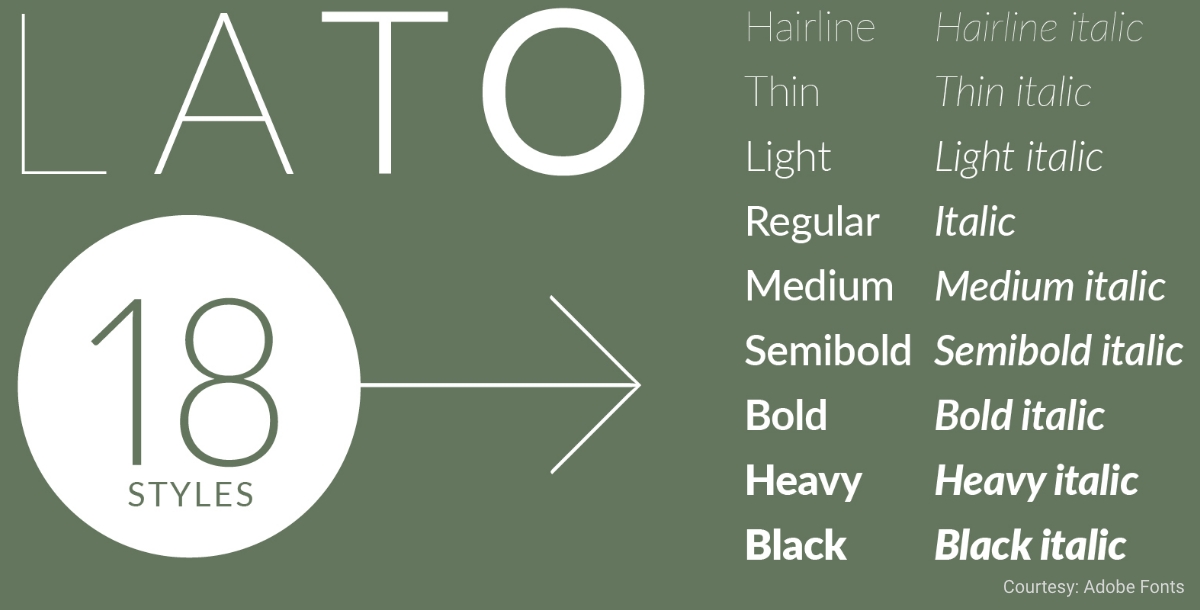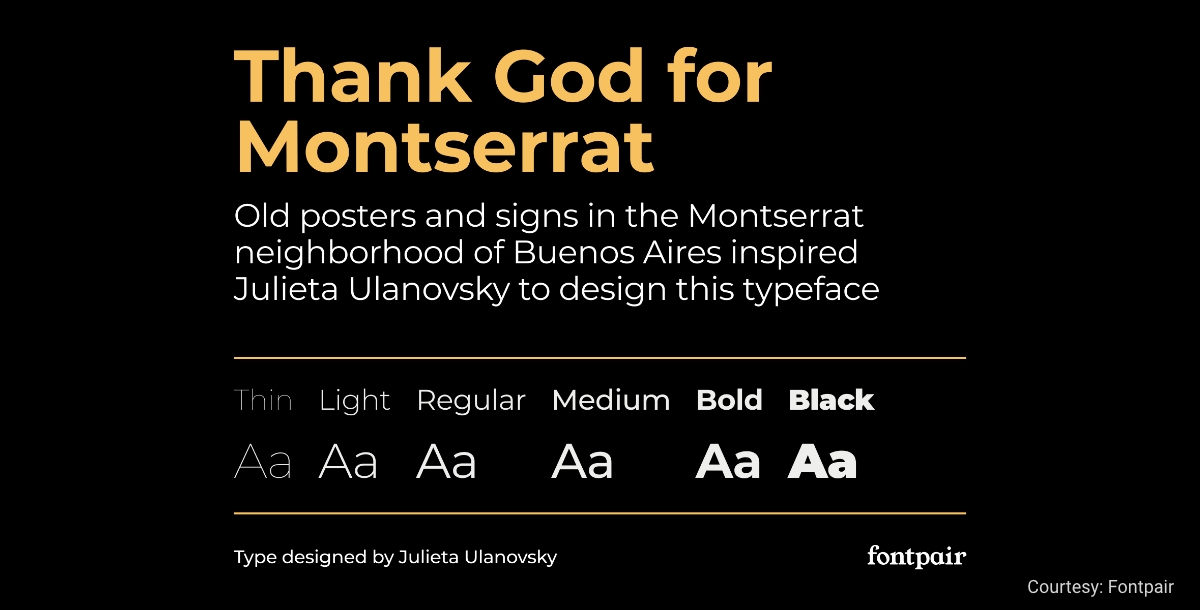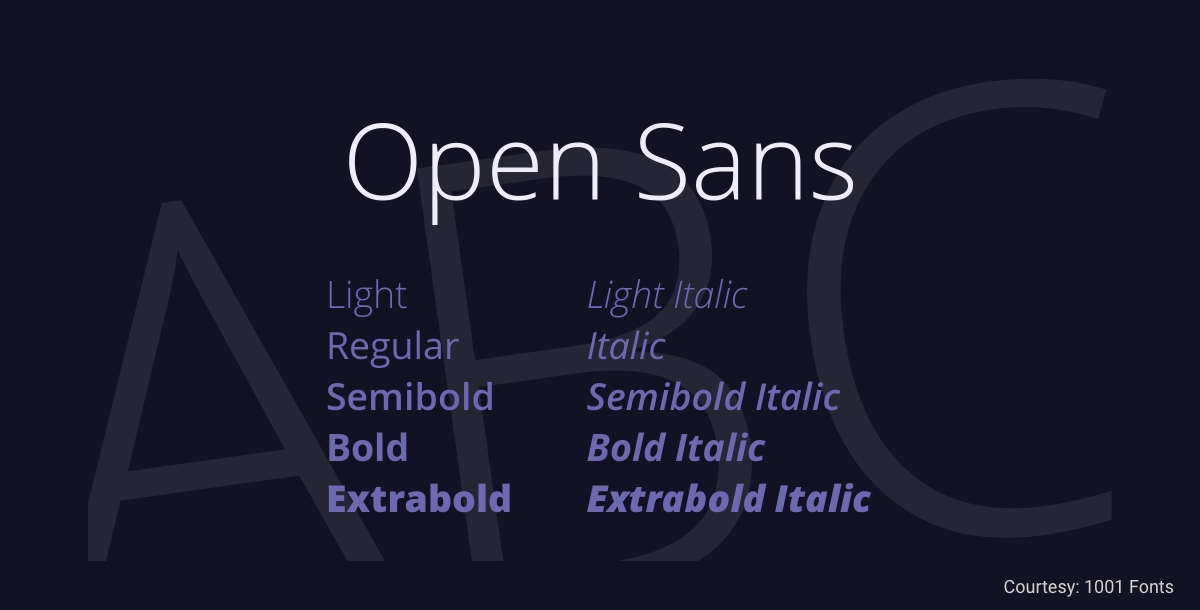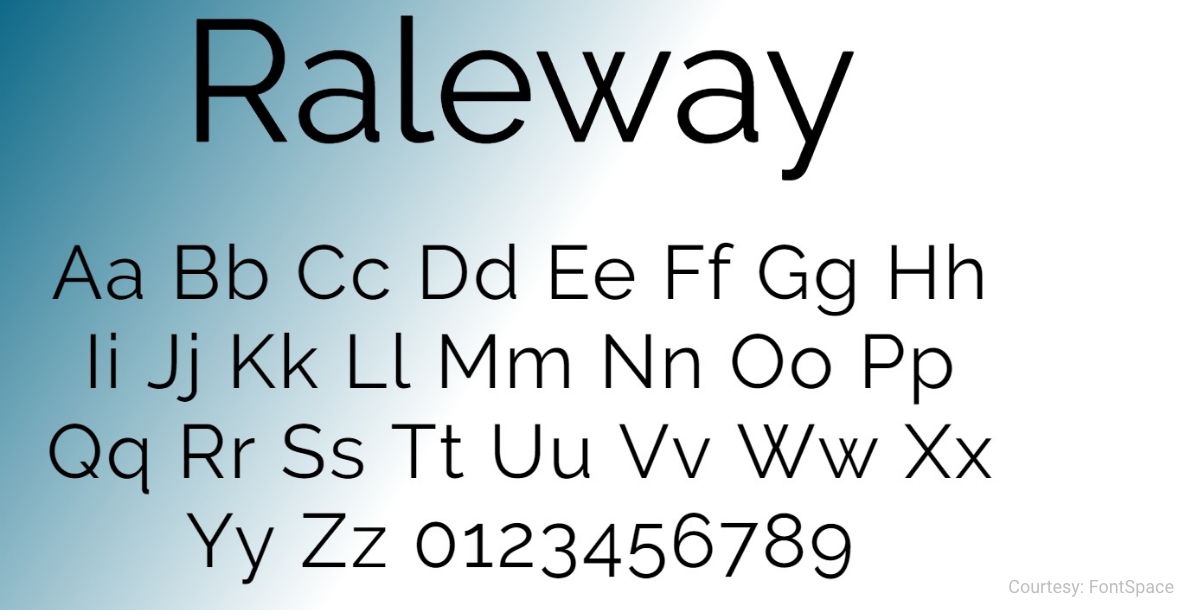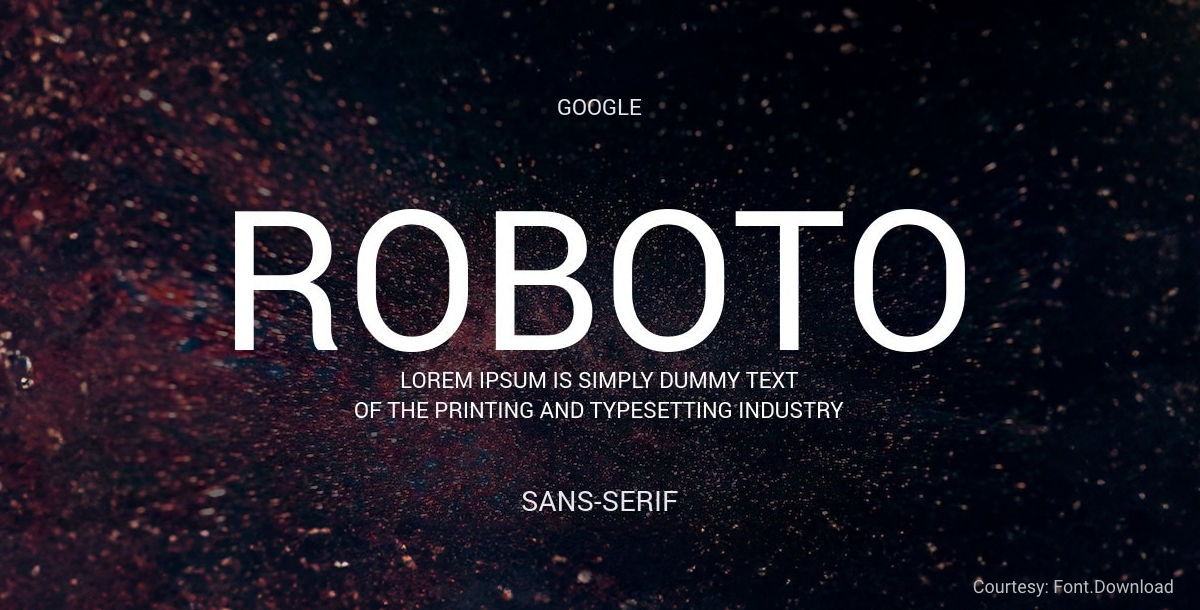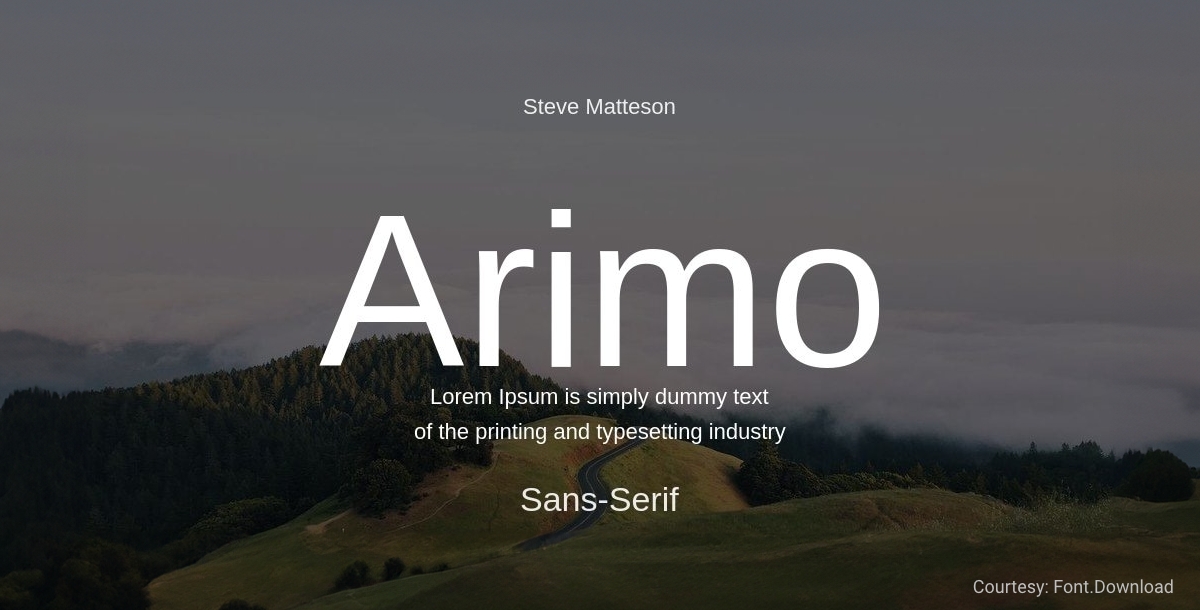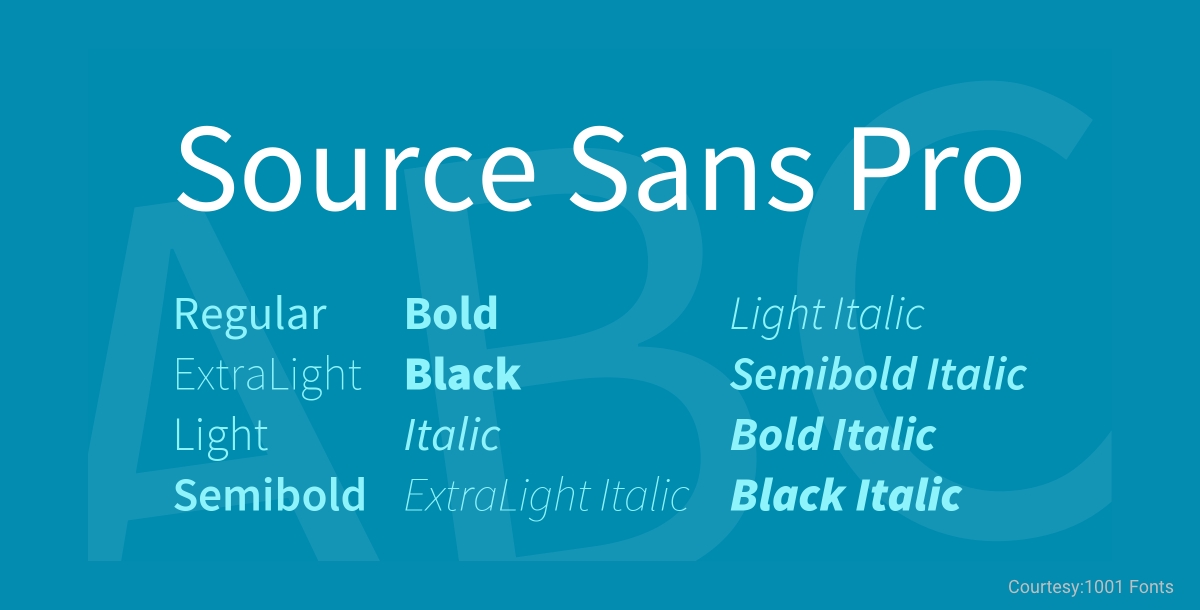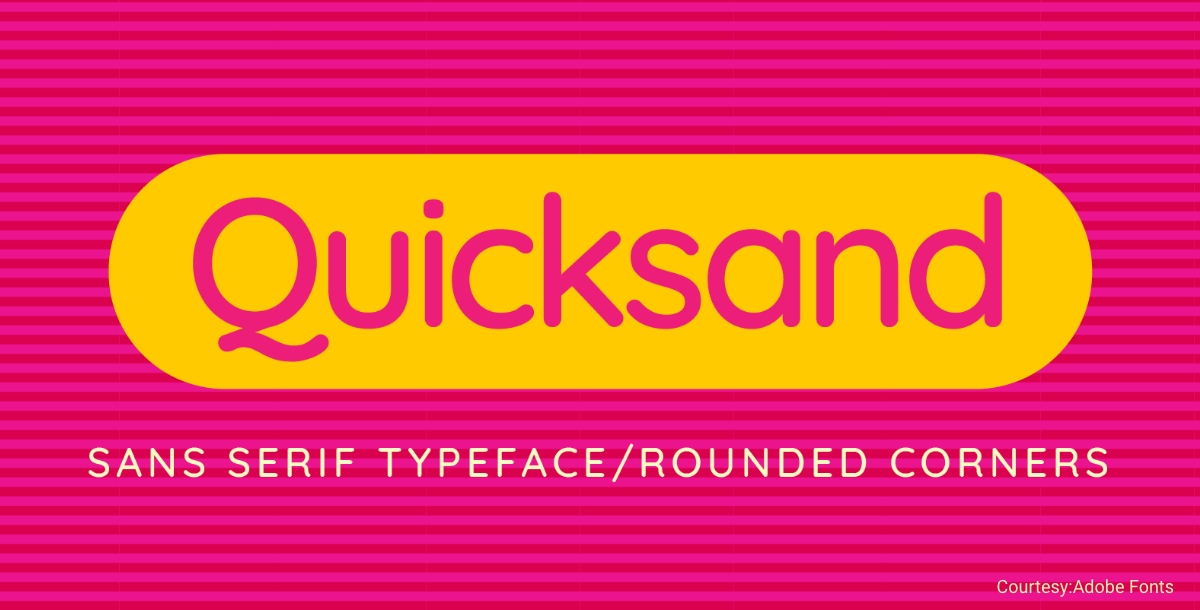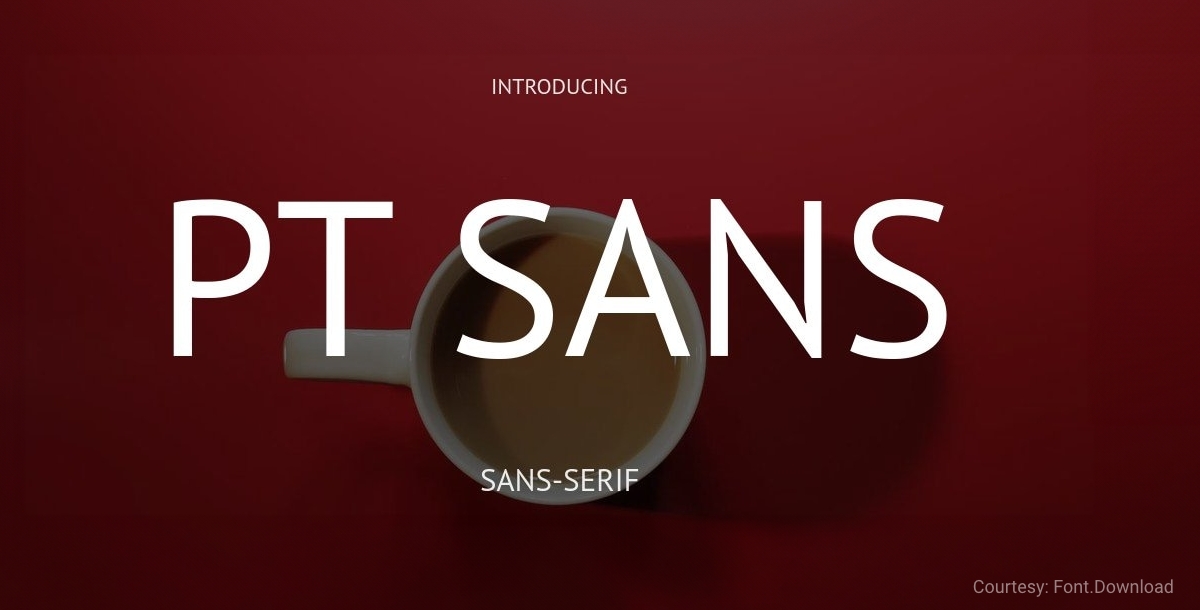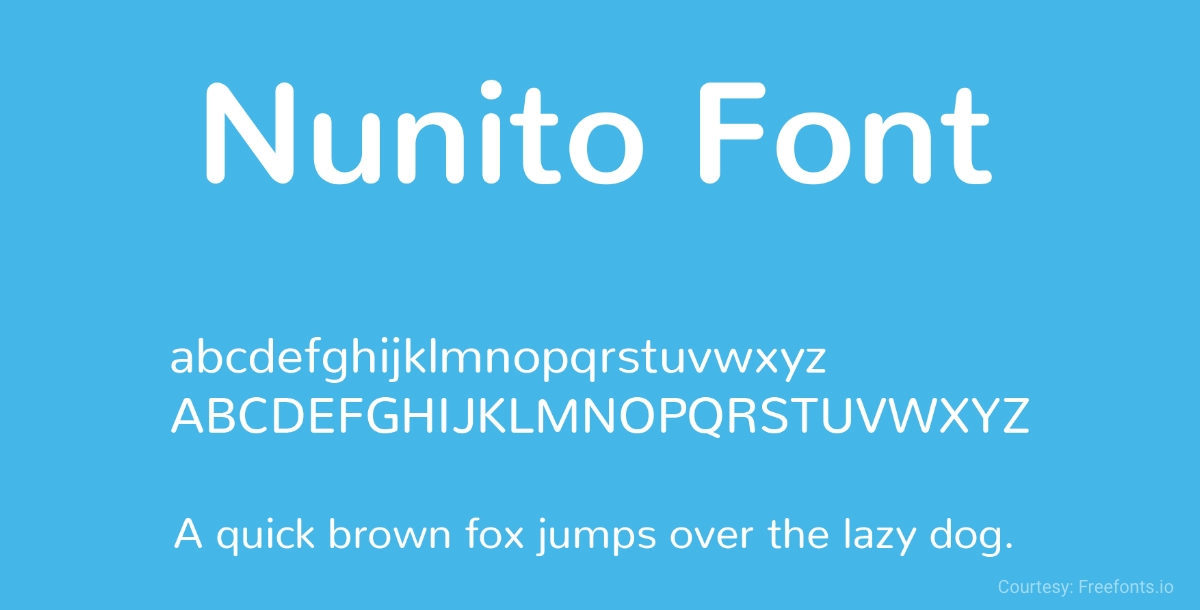
61+ Free Minimalist Fonts for Stunning Designs
Are you looking to make your designs stand out without all the clutter? Minimalist fonts might be just what you need. They are clean, elegant, and perfect for any project. In this post, we’ve gathered a collection of free minimalist fonts that can take your designs to the next level.
Whether you're working on a website, a presentation, or a personal project, these fonts will help you create stunning visuals with ease. Let's dive in and find the perfect font for your next design!
What are Minimalist Fonts?
Minimalist fonts are typefaces that focus on simplicity and clarity. They often have clean lines, minimal decorations, and a modern look. These fonts are perfect for creating a sleek and professional appearance in your designs.
Also, you might have observed that with the rise of AI design tools, it's easier than ever to incorporate these fonts into your projects. It can help you quickly find and apply the best minimalist fonts, ensuring your work looks polished and sophisticated. Whether you're designing a website, a logo, or any other project, minimalist fonts can make your work stand out with their clean and elegant style.
Why Choose Minimalist Fonts?
Choosing minimalist fonts can greatly enhance your designs for several reasons. Here’s why you should consider them:
- Clean Aesthetic: Minimalist fonts offer a clean and uncluttered appearance, enhancing the overall aesthetic of your design.
- Readability: With their simple and straightforward design, minimalist fonts ensure easy readability, especially in digital formats and small sizes.
- Versatility: Minimalist fonts are highly versatile and can be used across different platforms and design contexts, from print to web to branding materials.
- Timelessness: The timeless appeal of minimalist fonts ensures that your designs remain relevant and contemporary for years to come.
Free Minimalist Fonts to Elevate Your Designs
Here's a curated list of 65 free minimalist fonts that you can use to enhance your design projects:
- Lato: Ideal for body text in websites, mobile apps, and print materials due to its readability and versatility.
- Montserrat: Great for headings, logos, and posters, offering a modern and clean appearance with a touch of geometric flair. Create your poster using a poster maker using Montserrat font making your poster appealing.
- Open Sans: Suitable for both digital and print applications, including website content, presentations, and marketing materials, thanks to its clear and neutral design.
- Raleway: Perfect for headlines, banners, and logos, providing a sleek and elegant look with its thin strokes and modern styling.
- Roboto: Versatile for various digital interfaces such as websites, mobile apps, and user interfaces, offering a contemporary and readable appearance.
- Arimo: Well-suited for body text in digital documents, presentations, and user interfaces, offering high readability on screens of all sizes. You can use Presentation Maker and design converting presentations using Arimo minimalist font.
- Source Sans Pro: Suitable for both print and digital text, including articles, brochures, and website content, with its clean and legible design.
- Quicksand: Ideal for logos, headlines, and branding materials, providing a friendly and modern appearance with its rounded letterforms.
- PT Sans: Great for body text in print materials such as books, magazines, and newspapers, offering a balance of readability and space efficiency.
- Nunito: Perfect for headers, titles, and branding materials, offering a rounded and friendly appearance with a touch of sophistication.
- Exo: Suitable for modern and bold headlines in posters, banners, and advertisements, offering a strong visual impact with its geometric shapes and sharp edges.
- Work Sans: Ideal for body text in digital interfaces such as websites, apps, and presentations, providing excellent legibility and a contemporary look.
- Oswald: Great for headlines, titles, and branding materials, especially in designs that require a strong and impactful presence, thanks to its bold and condensed letterforms.
- Poppins: Versatile for a wide range of design projects, including both digital and print applications, offering a clean and friendly appearance with a touch of personality.
- Ubuntu: Suitable for body text in digital interfaces, educational materials, and technical documents, providing a balance of clarity and modernity.
- Titillium Web: Perfect for both print and digital text, including articles, reports, and website content, with its clean and professional design.